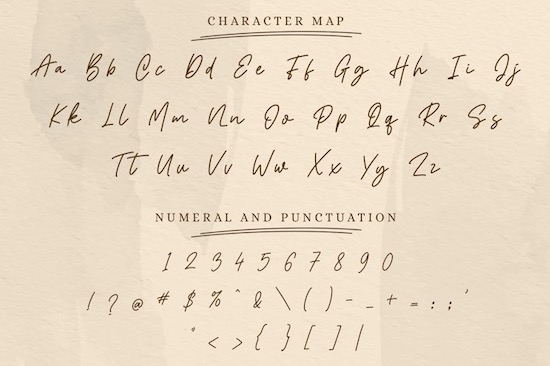
Menthol font is a flowing and elegant handwritten typeface, it has a natural signature style. This font was designed and released by Din Studio, and this font is PUA encoded so means we can access all of the glyphs as well as swashes with ease.
Menthol is perfect for the other various formal design forms such as labels, stationery, magazines, wedding cards, greeting cards, packaging, make up, logos, invitations, books, novels, fashion, labels, and much more.
Menthol Signature Handwritten Font
Menthol Signature Script Font